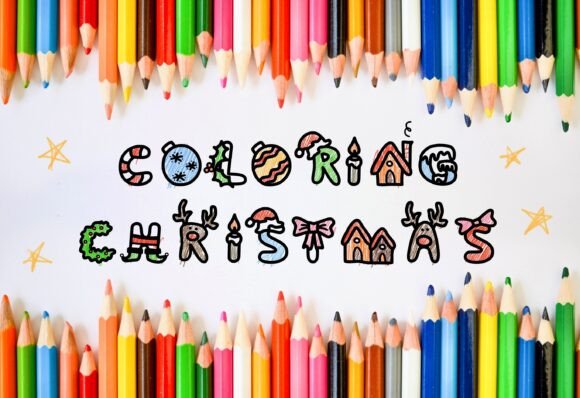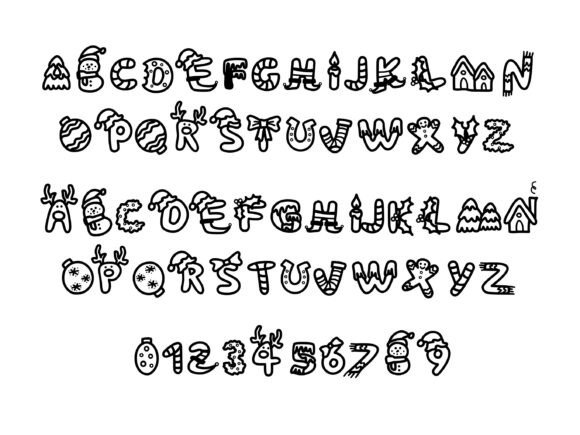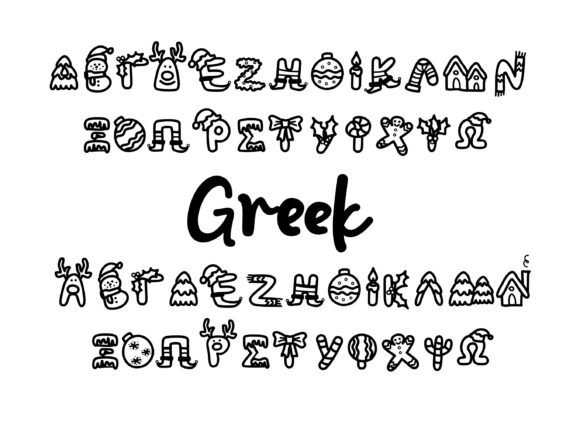
Introduction to Coloring Christmas Font
β€œColoring Christmas” is a fun, playful, Christmas font, primarily done for my kids to color, and now available for everyone to use and enjoy.